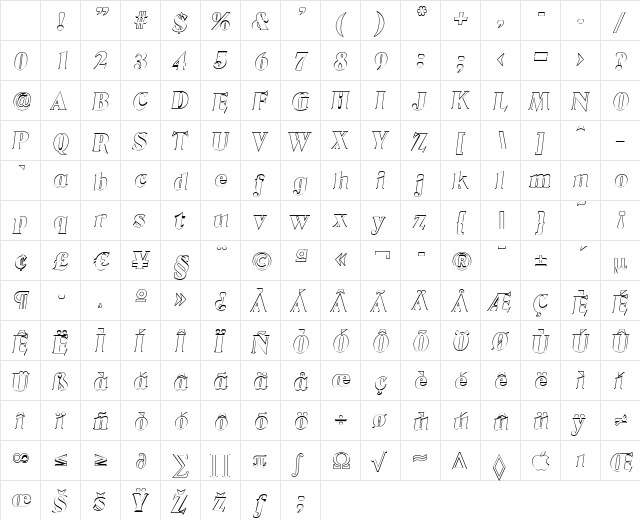
ThomasBeckerOutline-Black is built around its visual character rather than neutral utility - its distinctive forms are designed to make an impression at display sizes. The slanted form adds forward momentum and visual energy.
Font Pairing: Pair with a clean neutral sans-serif for body copy to let ThomasBeckerOutline-Black's character lead without overwhelming the composition.
Pro Tip: Use ThomasBeckerOutline-Black exclusively at display sizes - it was designed to be seen, not read at length. Let a neutral companion handle body copy.